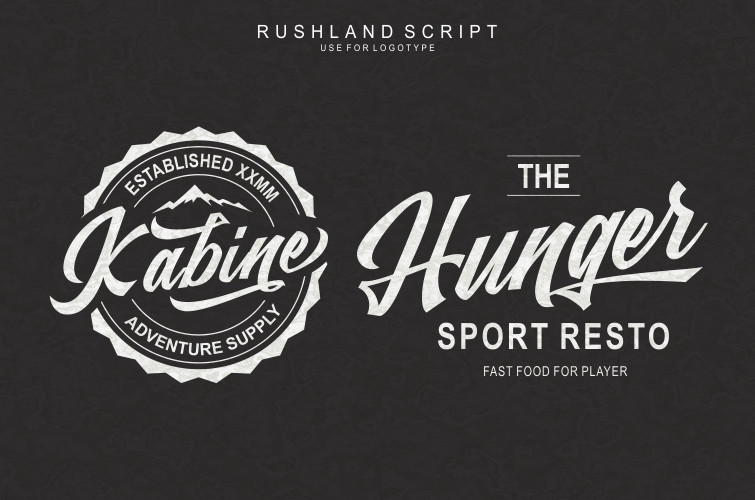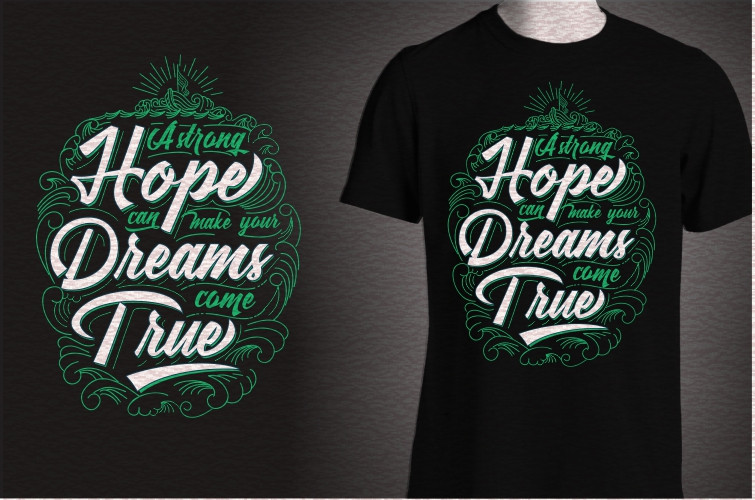
Rushland Script Sporty Font is a font created to bring strong, sharp and flexible young characters with smooth and varied swashes, this font was created for the purpose of being used as.
+ LOGOTYPE
+ TYPOGRAPHY QUOTES
+ MERCH DESIGN
with feature features in the font you can use to enhance fonts, feature features like:
+ Ligature
+ Swash
+ SS01-SS03
+ SALT